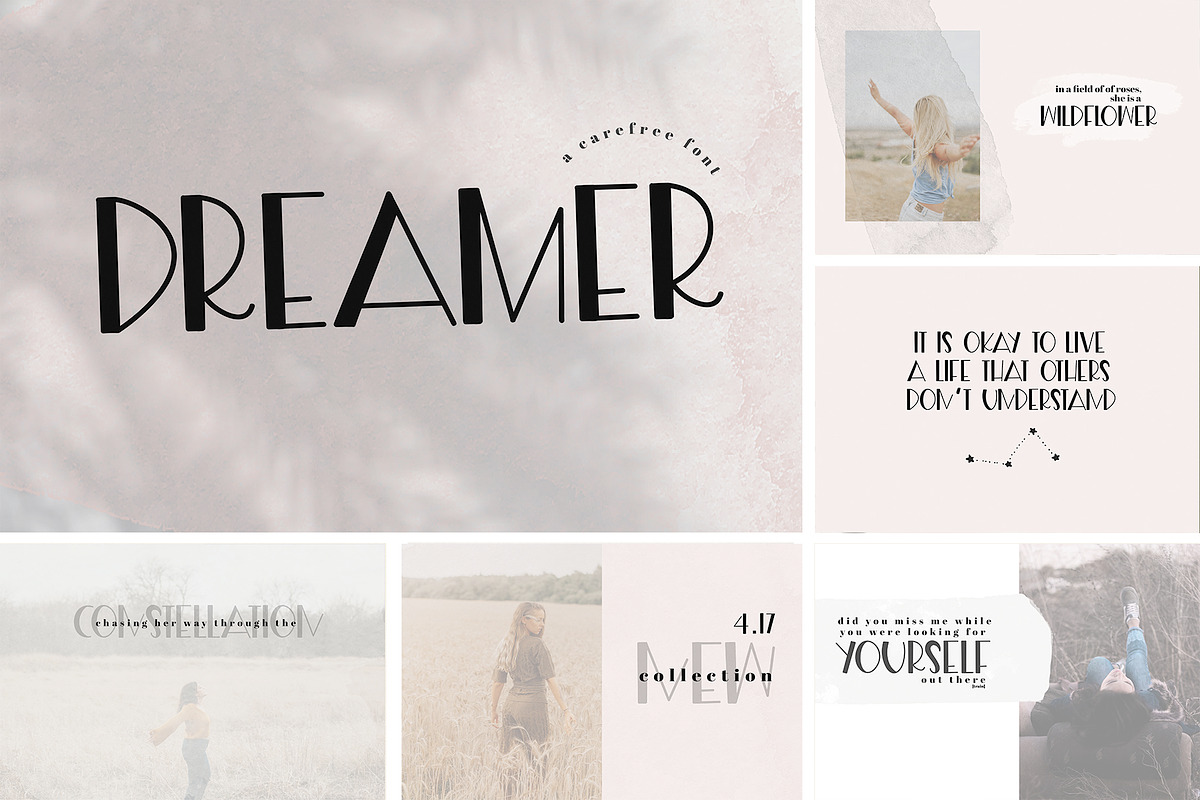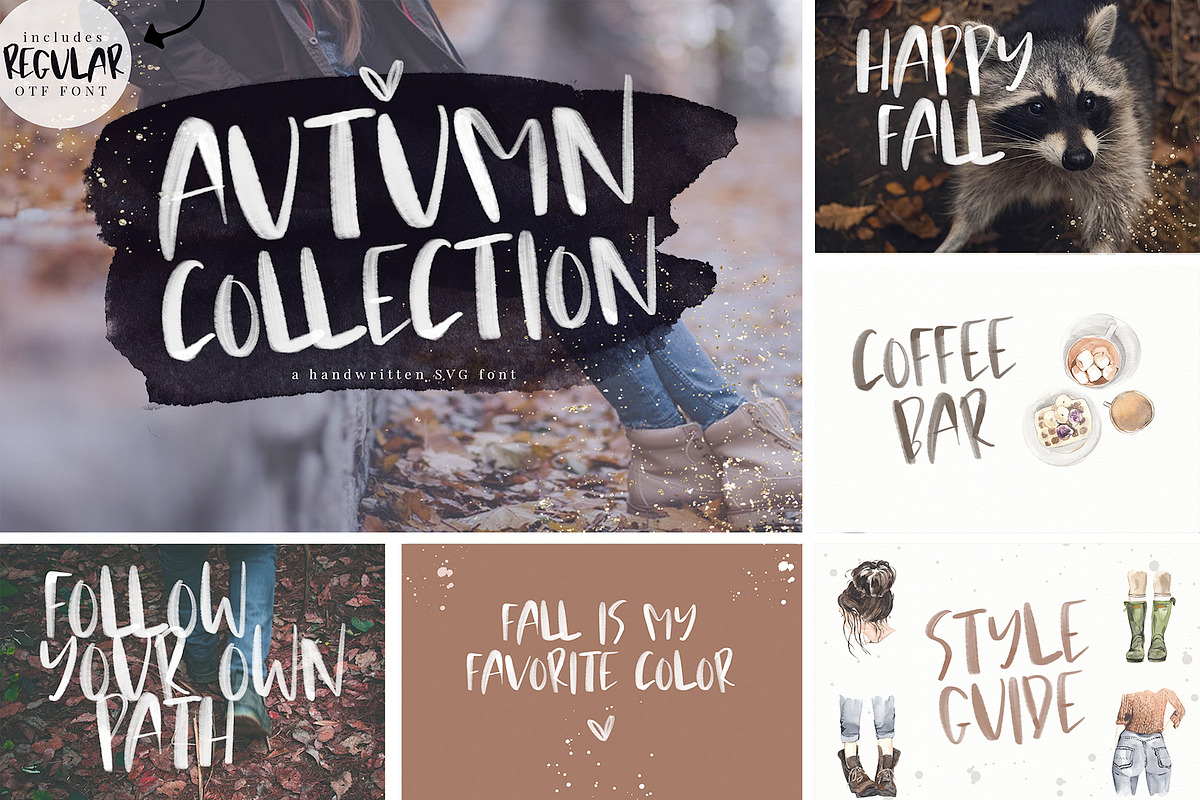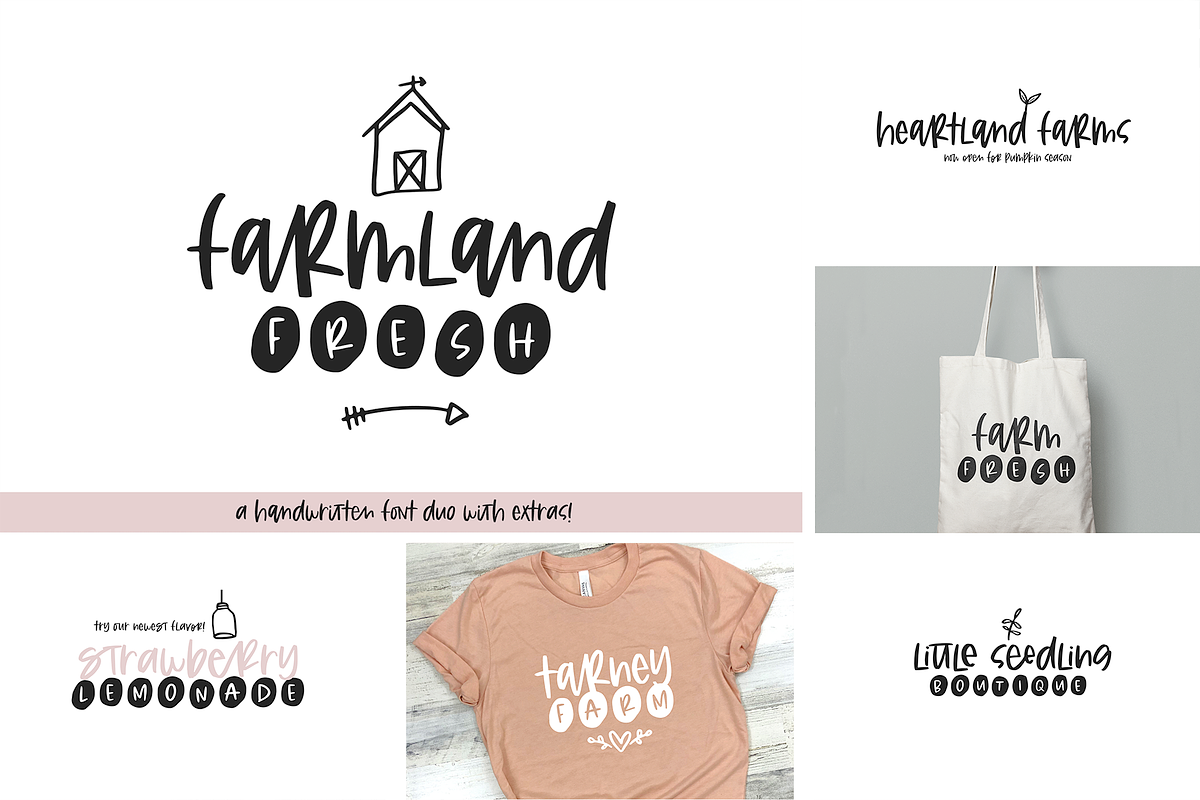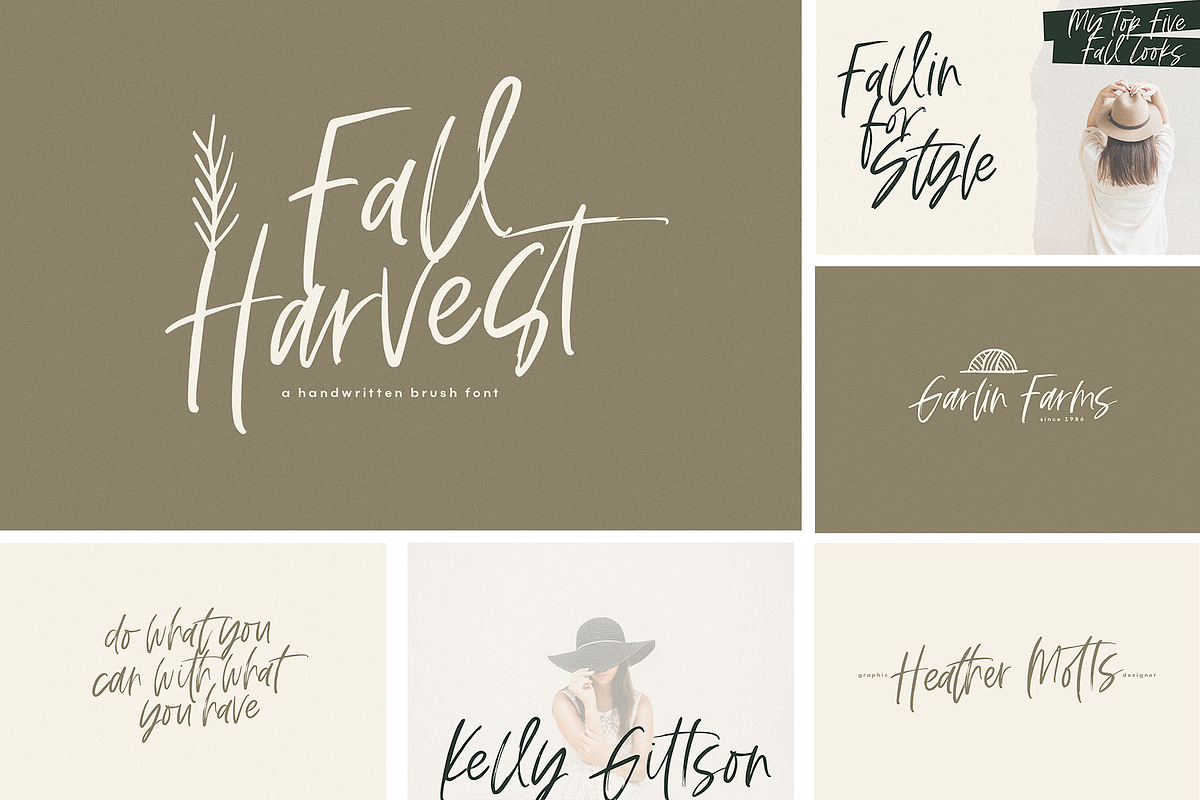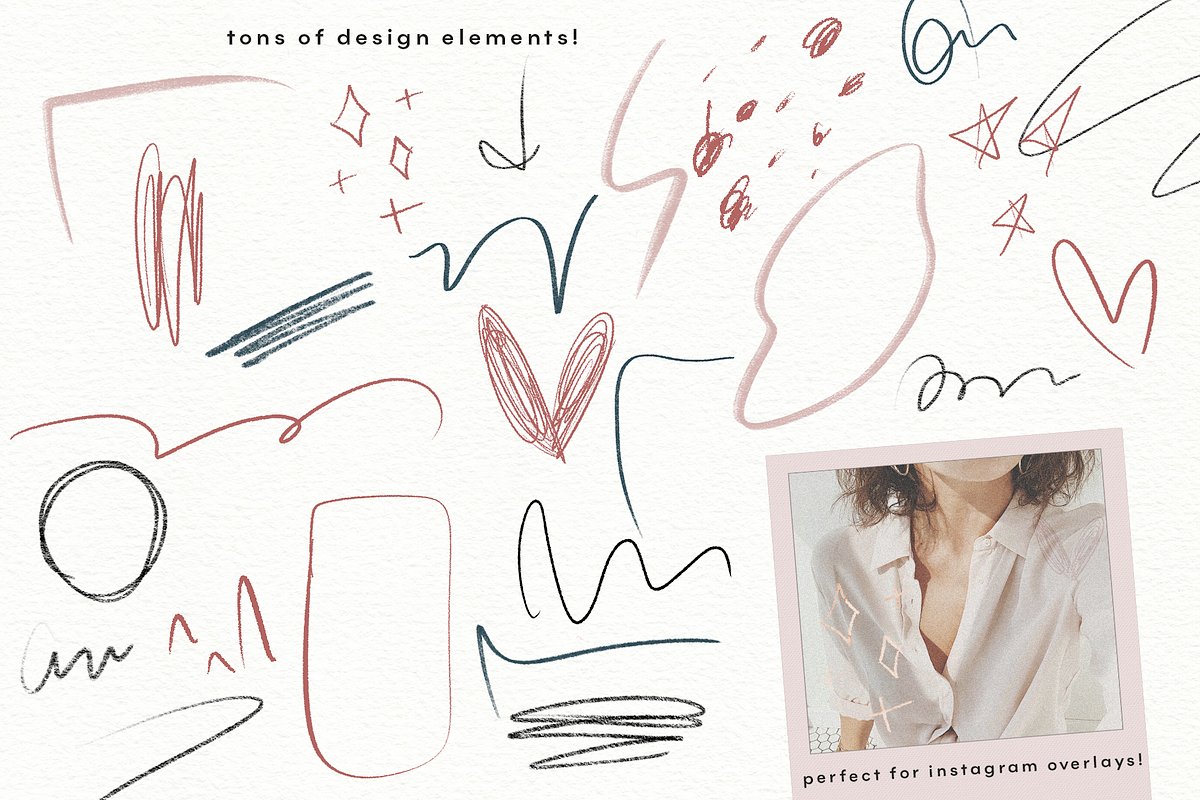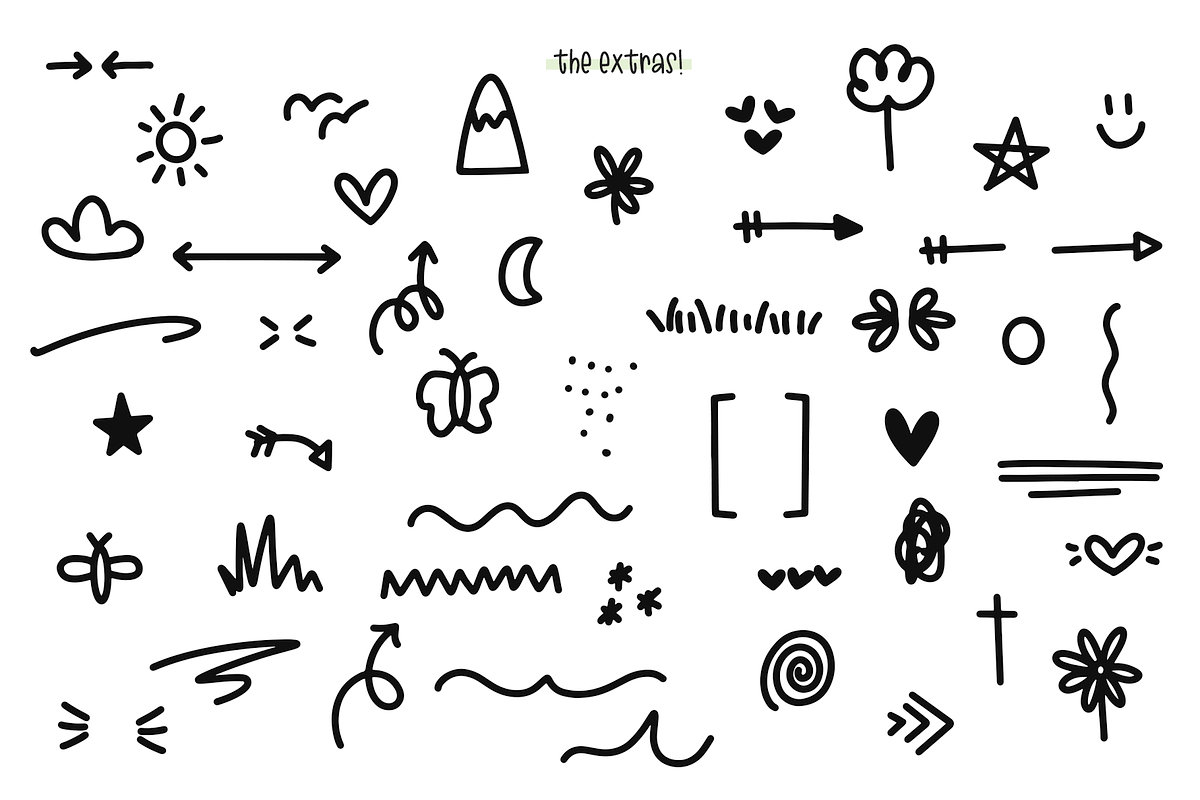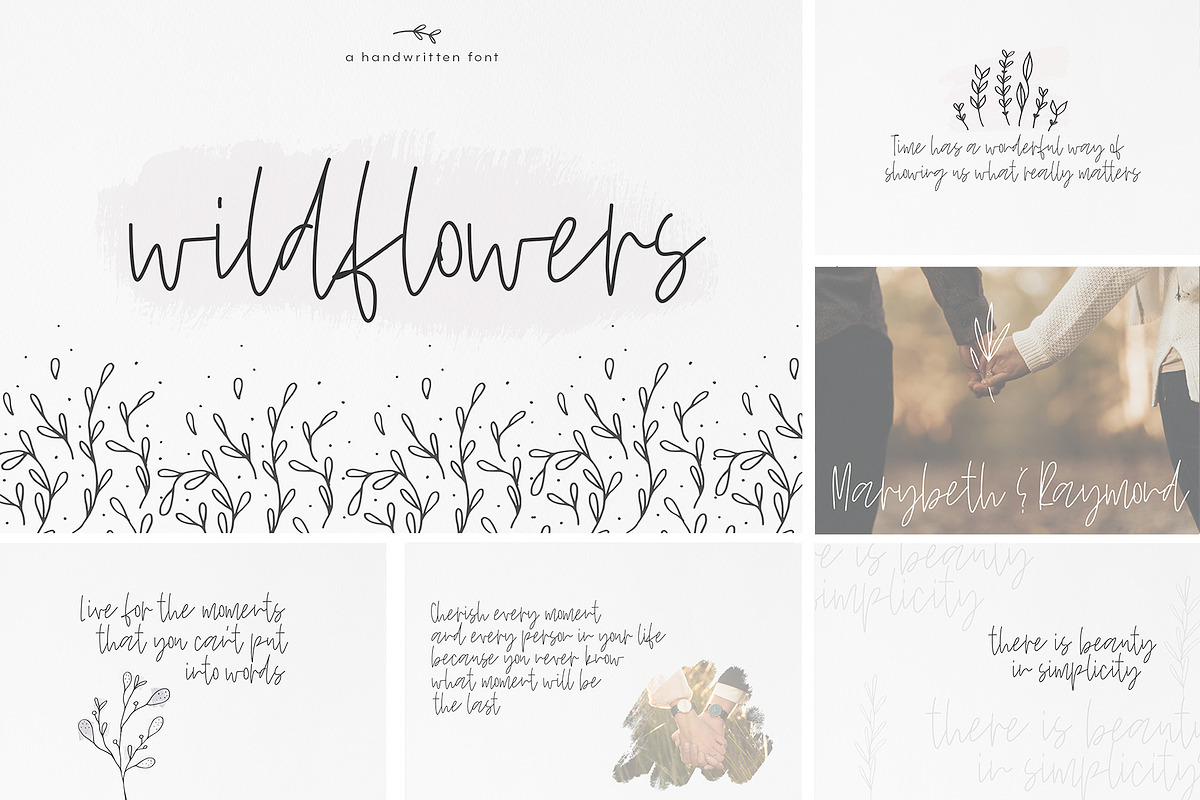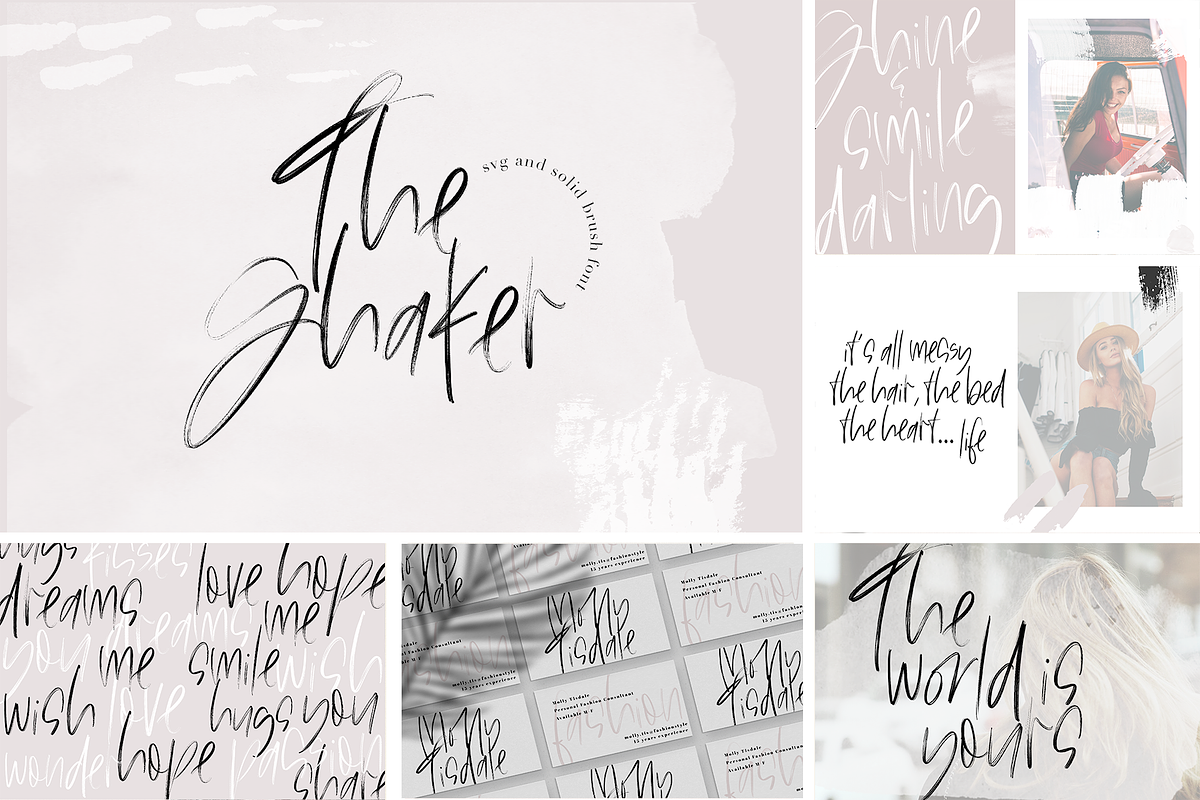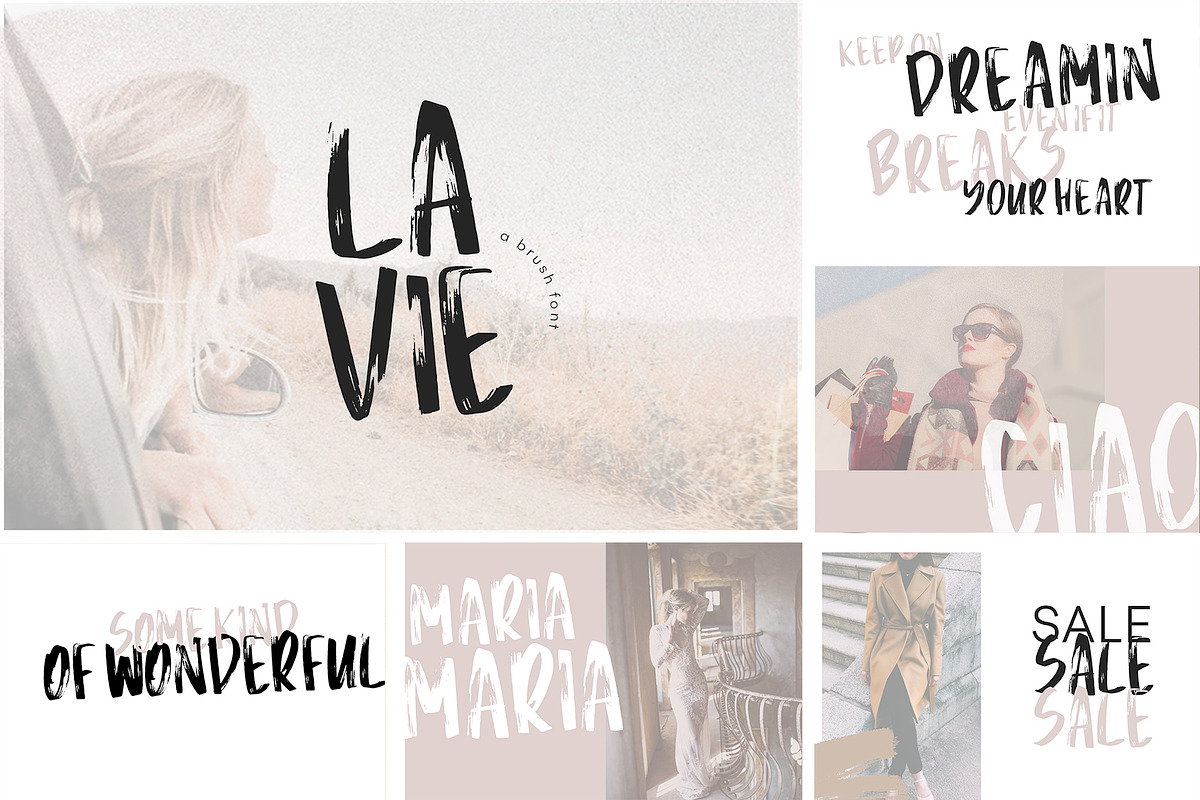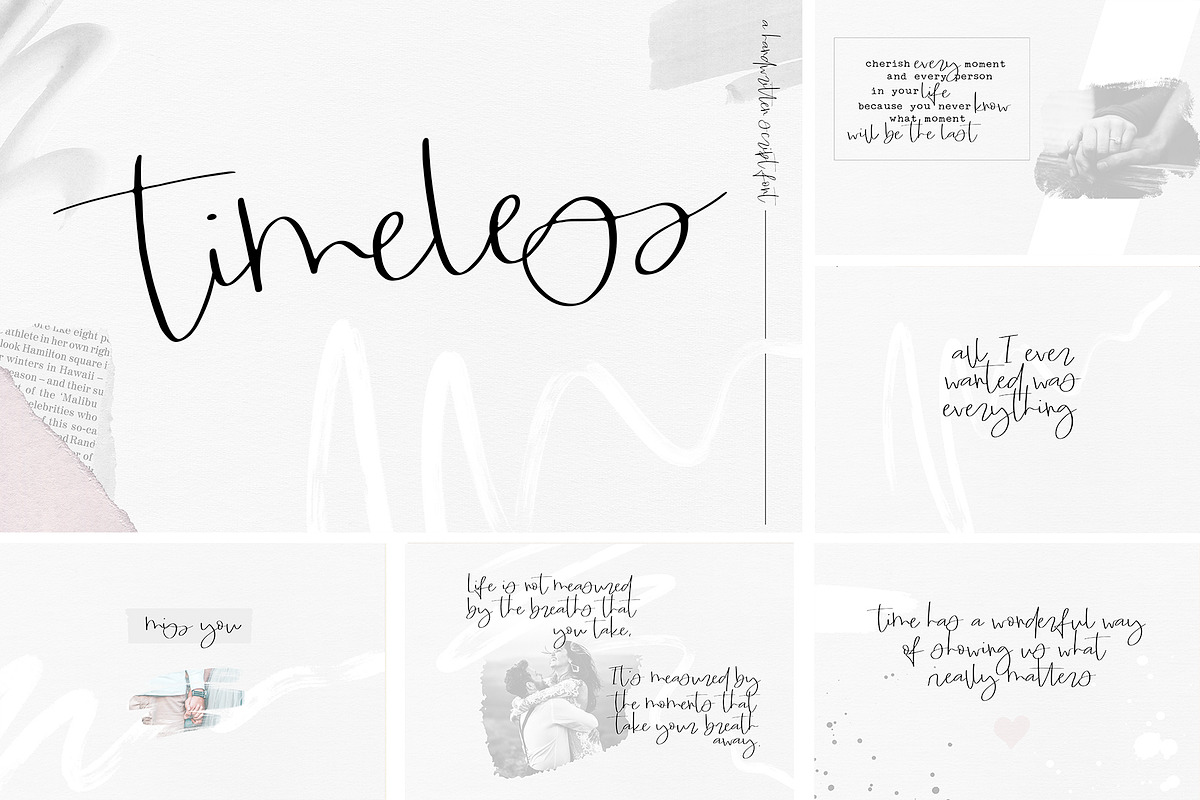
The Designer's Font BUNDLE
There are also a TON of fun graphic design elements included!
- Most but NOT all fonts include accent characters. If unsure, refer to individual listing.
This bundle offers so many different styles of fonts - basic script, modern calligraphy, serif, sans serif, quirky, doodles and more! I wanted to offer a variety of styles to suit many different designers. Whether you are designing logos/branding, invitations, svg files, t-shirts, posters, websites, etc.. I think that you will be able to find some useful assets in this bundle!
- Wilk * https://crmrkt.com/Q7Jwzz
- Bloomy * https://crmrkt.com/Vlo2GM
- Glossy * https://crmrkt.com/4DwVo5
- The Shaker * https://crmrkt.com/w7p9zj
- Island Tea * https://crmrkt.com/BklaKy
- The Scarlett * https://crmrkt.com/WkRQzy
- The Messa * https://crmrkt.com/eRoG1y
- Dear May * https://crmrkt.com/R7dr6d
- Dear May Extras * https://crmrkt.com/R7dr6d
- Sugar and Lime * https://crmrkt.com/4DwVo5
- Sugar and Lime Extras * https://crmrkt.com/4DwVo5
- County Market * https://crmrkt.com/O6B7kO
- Dreamer * https://crmrkt.com/d0D7gJ
- Amsterdam * https://crmrkt.com/lkrQ3y
- Hey Style * https://crmrkt.com/O6B78B
- Breakroom * https://crmrkt.com/AkP5rm
- Timeless * https://crmrkt.com/M7774V
- Harvie * https://crmrkt.com/2m4aJ2
- Molly & Elroy * https://crmrkt.com/GPlqp9
- Believe * https://crmrkt.com/xk78pB
- Sassy * https://crmrkt.com/7QoaM2
- La Vie * https://crmrkt.com/w7p945
- Southern * https://crmrkt.com/M7vORK
- Sugarcoat * https://crmrkt.com/pkq8Dg
- Butterflies * https://crmrkt.com/05rmAl
- Things * https://crmrkt.com/Jp0Bww
- Superstitious * https://crmrkt.com/d0D7aq
- Blackout * https://crmrkt.com/2m1w1z
- Blooming * https://crmrkt.com/O6B7Pp
- Marshmallow * https://crmrkt.com/XkqVGr
- Wildflowers * https://crmrkt.com/y6G87K
- Absolutely * https://crmrkt.com/GPlqNz
- Guilty * https://crmrkt.com/gvM41r
- Sweet Dreams * https://crmrkt.com/Dglad2
- Sweet Dreamer * https://crmrkt.com/7Qoa23
- Autumn Collection * https://crmrkt.com/EkD03M
- Mink Beach * https://crmrkt.com/9Q3agk
- Cinnamon * https://crmrkt.com/4D4aMq
- Marvelous * https://crmrkt.com/O6B72p
- Lucky Charm * https://crmrkt.com/DgXRoO
- Dandy Dandelions * https://crmrkt.com/WkRQGA
- Fairytales * https://crmrkt.com/zM08xJ
- Haybasket * https://crmrkt.com/R7Oq6Q
- Kashing * https://crmrkt.com/mkrV55
- Kate Johnson * https://crmrkt.com/GPlqQ7
- Lumineuse * https://crmrkt.com/7QoaBv
- Mademoiselle * https://crmrkt.com/Jp0Bo5
- Maryland * https://crmrkt.com/Bklax2
- Mishap * https://crmrkt.com/33raD2
- Sophisticated * https://crmrkt.com/zM08ao
- Sky * https://crmrkt.com/WkRQ27